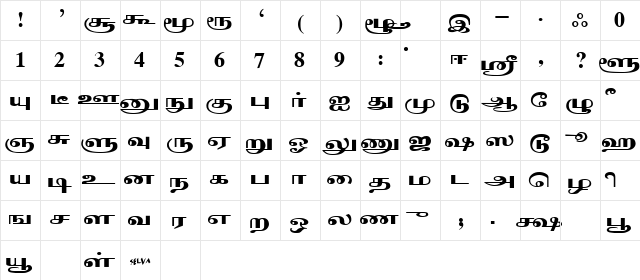
Karmukil Regular
Design Context for Karmukil Typeface
Karmukil offers clean, dependable letterforms without strong stylistic allegiance, making it a practical choice for designers who need flexibility.
Pro Tip: Pair Karmukil with a font of contrasting weight or personality to build a more expressive typographic hierarchy.